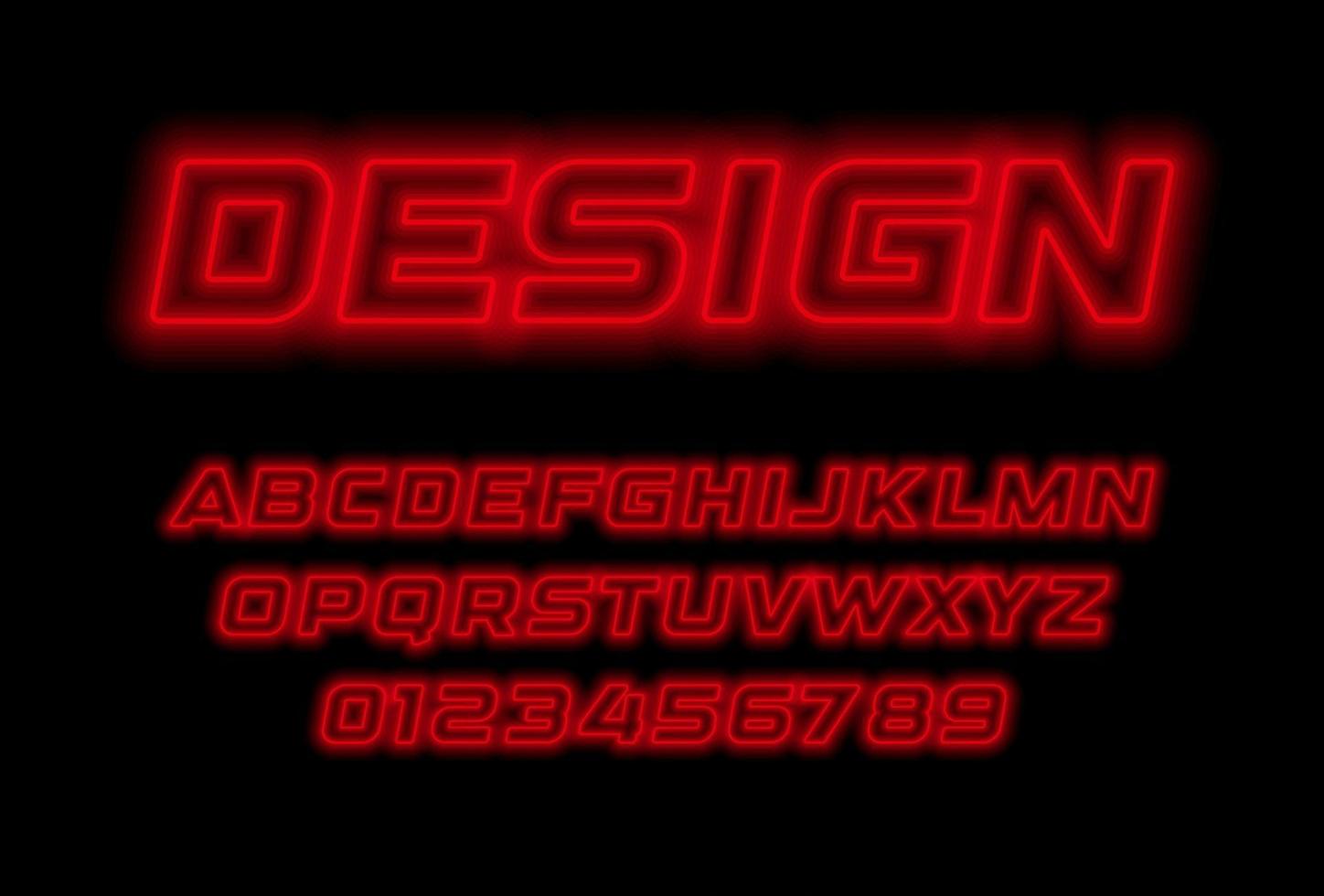
Red neon style alphabet. Italic contour line font, neon futuristic logo, elegant monogram, digital device and hud graphic. Minimal style letters, vector typography design Pro Vector